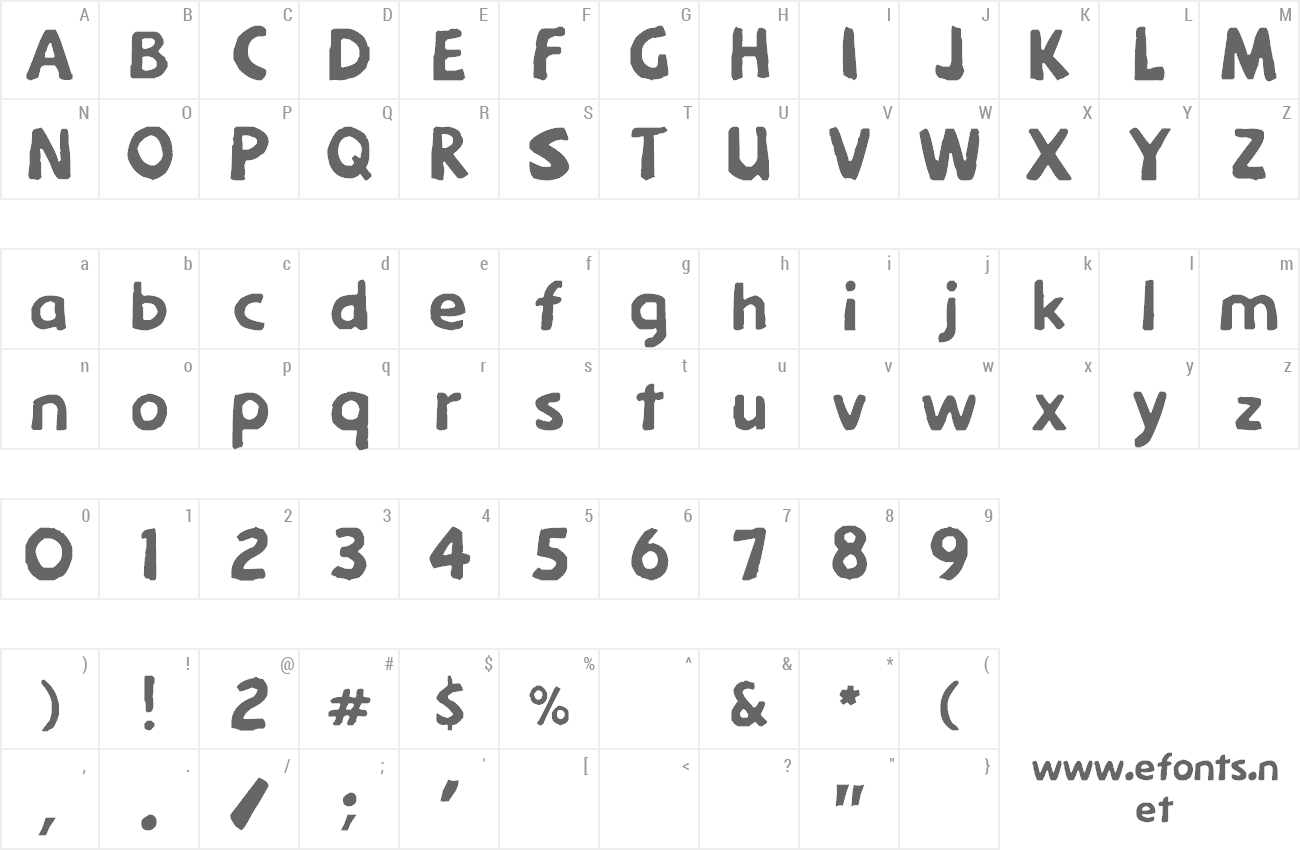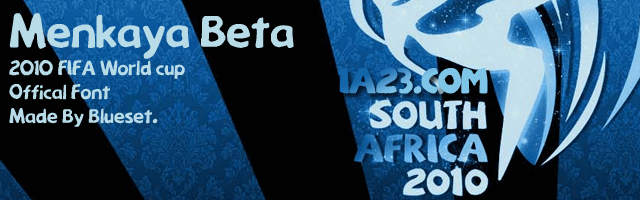
Menkaya (Beta) is a low quality duplicate of the original font Menyaka by Jan Erasmus. This font is made for demonstration purposes, and must not be used in any occasion other than private use. For any enquiries about other uses of this font, please contact the original font author. http://www.cybergraphics.bz/contact.html |